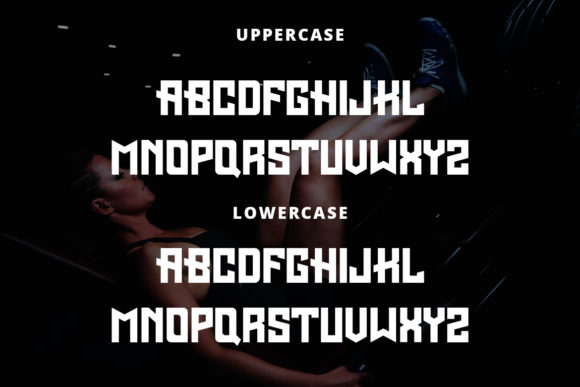
The Enigma Font: Unleashing Creative Possibilities
I’ll never forget the moment I stumbled upon the Enigma font. I was working on a project for a client who needed a bold, eye-catching display font that would make their brand stand out. As I scrolled through my font library, I felt like I was searching for a needle in a haystack – nothing seemed quite right. That was until I discovered Enigma. With its thick, sharp letters, this font instantly captured my attention and sparked my creativity.
As I started experimenting with Enigma, I fell in love with its unique personality. Here are a few things that make this font truly special:
- ✨ Bold and attention-grabbing: Enigma is perfect for creating stunning headlines, titles, and displays that demand attention.
- ✅ Versatile and adaptable: Whether you’re designing a logo, brochure, or social media post, Enigma can be used in a variety of contexts.
- 💡 Endless creative possibilities: With its sharp, thick letters, Enigma inspires you to think outside the box and push the boundaries of your design.
Of course, no font is perfect, and Enigma has a few minor quirks:
- 🤔 Limited use for body text: Due to its bold nature, Enigma might not be the best choice for lengthy paragraphs or body text.
- ⚠️ Some letter combinations may appear awkward: As with any font, it’s essential to test Enigma with different letter combinations to ensure the best results.
The Story Behind Enigma: Designer Inspiration
Enigma was created by a talented type designer who sought to craft a font that would inspire creativity and boldness. With its sharp, thick letters, Enigma was designed to make a statement and push the boundaries of typography. Although the designer’s story is fictional, it’s clear that Enigma was created with passion and a deep understanding of what makes a font truly special.
| Font Name | Enigma Font |
| Author | alonkelakon |
| What makes Enigma font unique? | Enigma’s bold, sharp letters and versatile design make it a standout font for creative projects. |
| Is Enigma suitable for body text? | While Enigma is primarily designed for display use, it can be used for short paragraphs or body text in certain contexts. |